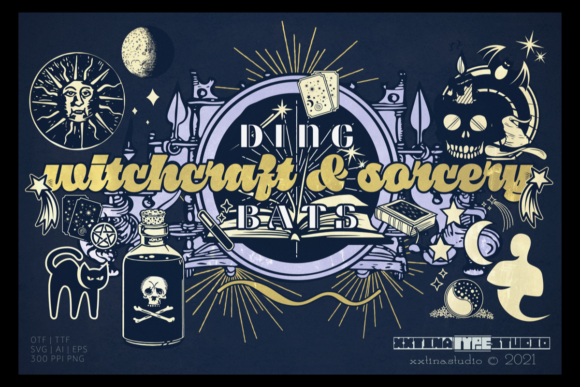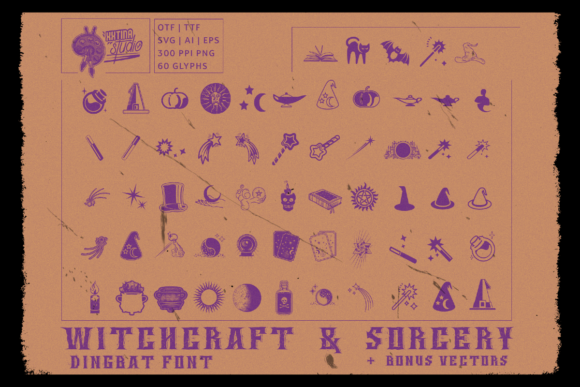
Witchcraft & Sorcery Font
“Witchcraft & Sorcery” is an intriguing and spooky dingbats font that is perfect for adding a touch of magic and mystery to your creative projects. Whether you’re working on Halloween crafts, designing horror movie posters, creating themed t-shirts, or any other project that requires a spectacular look, this font will definitely cast a spell on your audience.
With its unique and intricate glyphs, “Witchcraft & Sorcery” offers a wide range of mystical symbols and icons related to witchcraft, sorcery, and the supernatural. From spell books and cauldrons to broomsticks and pentagrams, this font provides the perfect set of visuals to enhance the eerie and enchanting atmosphere of your designs.
When it comes to Halloween crafts, “Witchcraft & Sorcery” can be a game-changer. Use it to create spooky invitations, haunted house decorations, potion bottle labels, or even design your own spellbook. The detailed and captivating glyphs of this font will add an extra layer of authenticity and intrigue to your Halloween-themed crafts, making them stand out and delighting all the witches and wizards in your midst.
For horror movie posters or other dark-themed designs, “Witchcraft & Sorcery” brings a touch of mysticism and darkness. The font’s spooky symbols and unique letterforms can be used to create eye-catching titles, taglines, or atmospheric elements that capture the essence of the supernatural. Whether you’re designing for a horror film, a ghostly event, or simply indulging in your love for the occult, this font will add a spectacular and chilling vibe to your creations.
T-shirts are another fantastic canvas for the “Witchcraft & Sorcery” font. Whether you’re designing shirts for Halloween parties, witchy gatherings, or simply expressing your fascination with the occult, this font will help you achieve a striking and captivating look. Combine the glyphs with other design elements, such as witches’ hats, black cats, or mystical symbols, to create unique and spellbinding t-shirt designs.
In summary, “Witchcraft & Sorcery” is a cool and spooky dingbats font that is perfect for adding a touch of magic and mystery to your creative projects. From Halloween crafts and horror movie posters to t-shirts and more, this font will help you create visually stunning designs that captivate and enchant your audience. Embrace the dark side and let “Witchcraft & Sorcery” cast its spell on your creations.